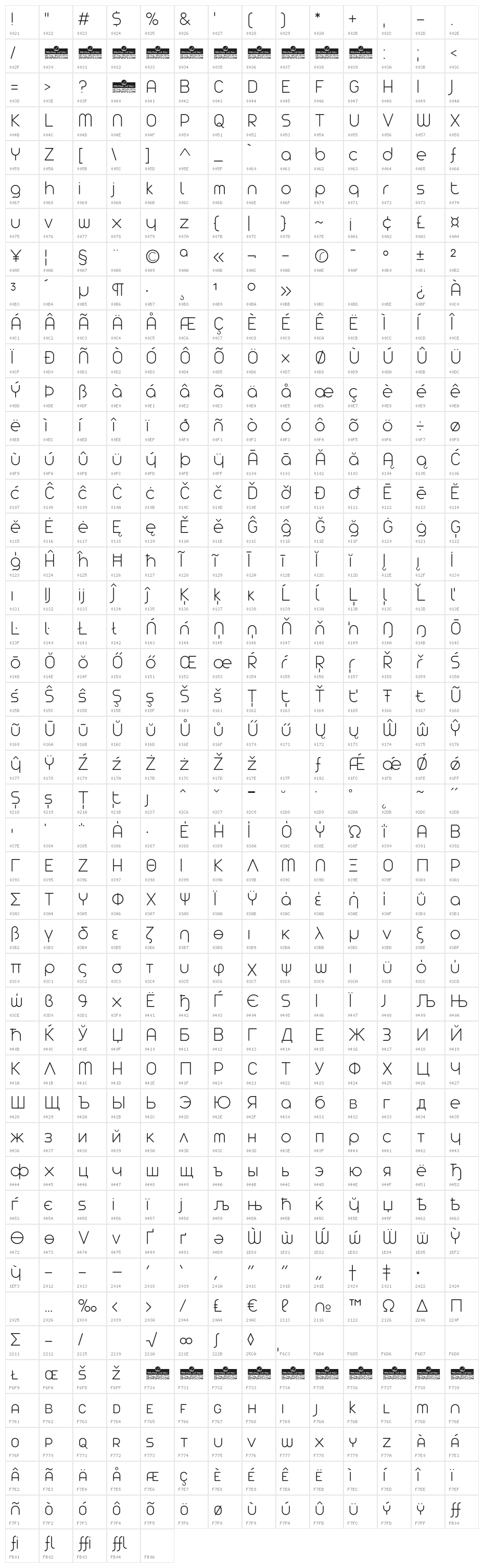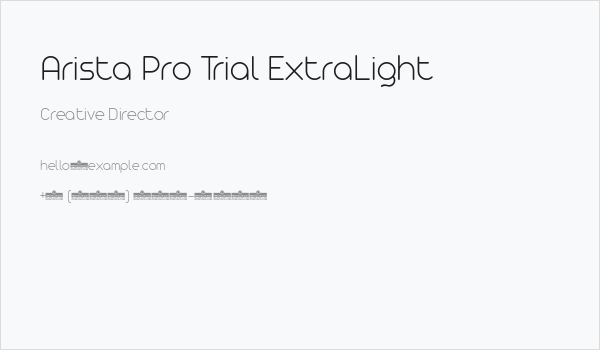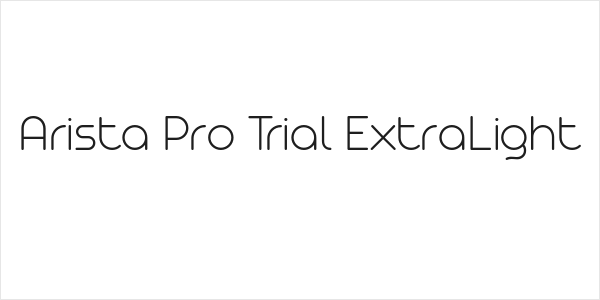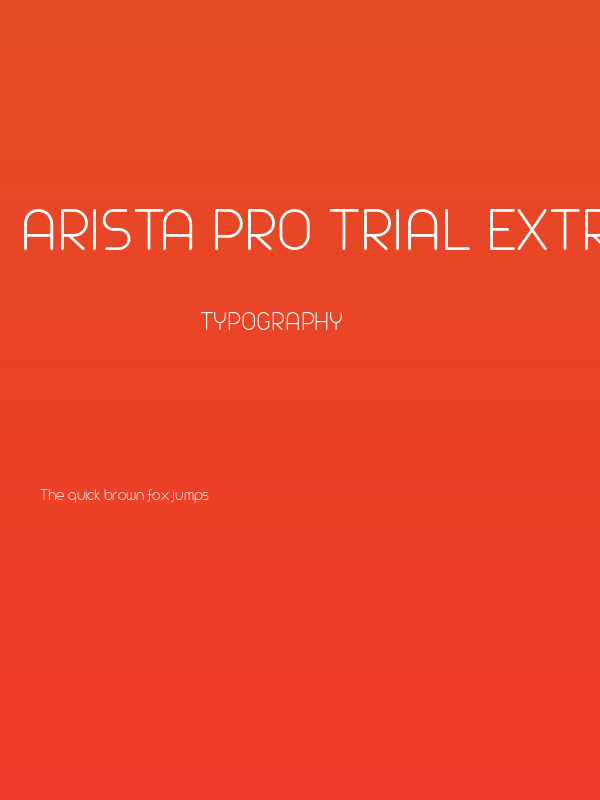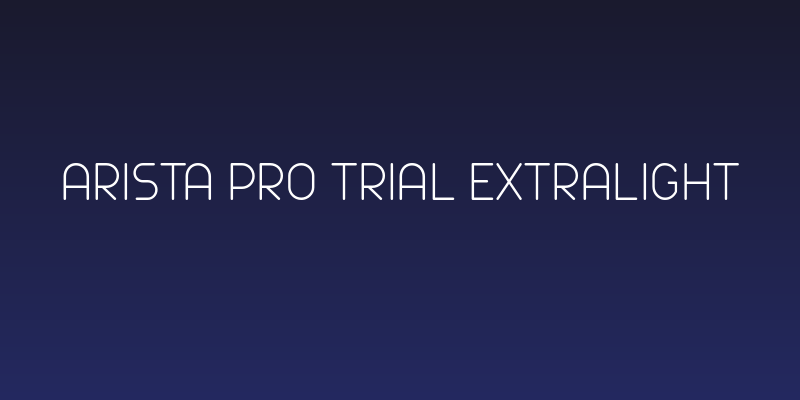
Arista Pro Trial ExtraLight Font
Arista Pro Trial ExtraLight Description
This font features a clean and modern design with a geometric structure. The characters are rounded and smooth, giving it a friendly and approachable appearance. The uppercase and lowercase letters maintain a consistent style, with uniform stroke widths that contribute to its minimalist aesthetic. The numerals and special characters are designed to match the overall look, ensuring a cohesive appearance across all text elements. This font is versatile, suitable for a variety of design projects that require a contemporary and sleek look.